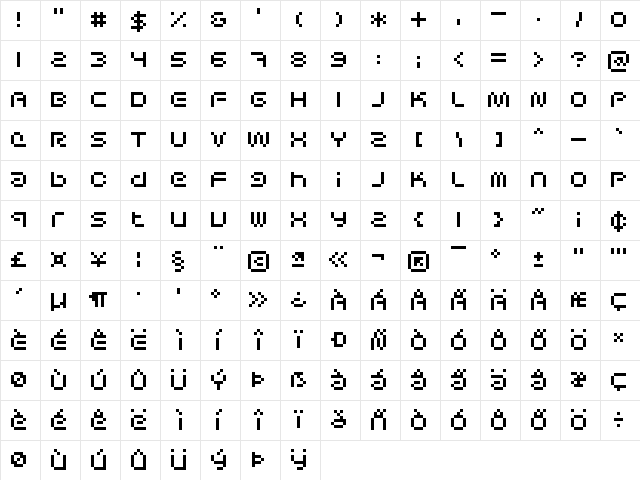
Sci Fied Bitmap Regular Free Font
Sci Fied Bitmap Regular
Design Context for Sci Fied Bitmap
Sci Fied Bitmap has a distinctly futuristic character, with geometric precision and clean angles that feel at home in technology, gaming, and sci-fi contexts.
Pro Tip: Try Sci Fied Bitmap with generous letter-spacing in UI labels and navigation - the geometric forms benefit from room to breathe.